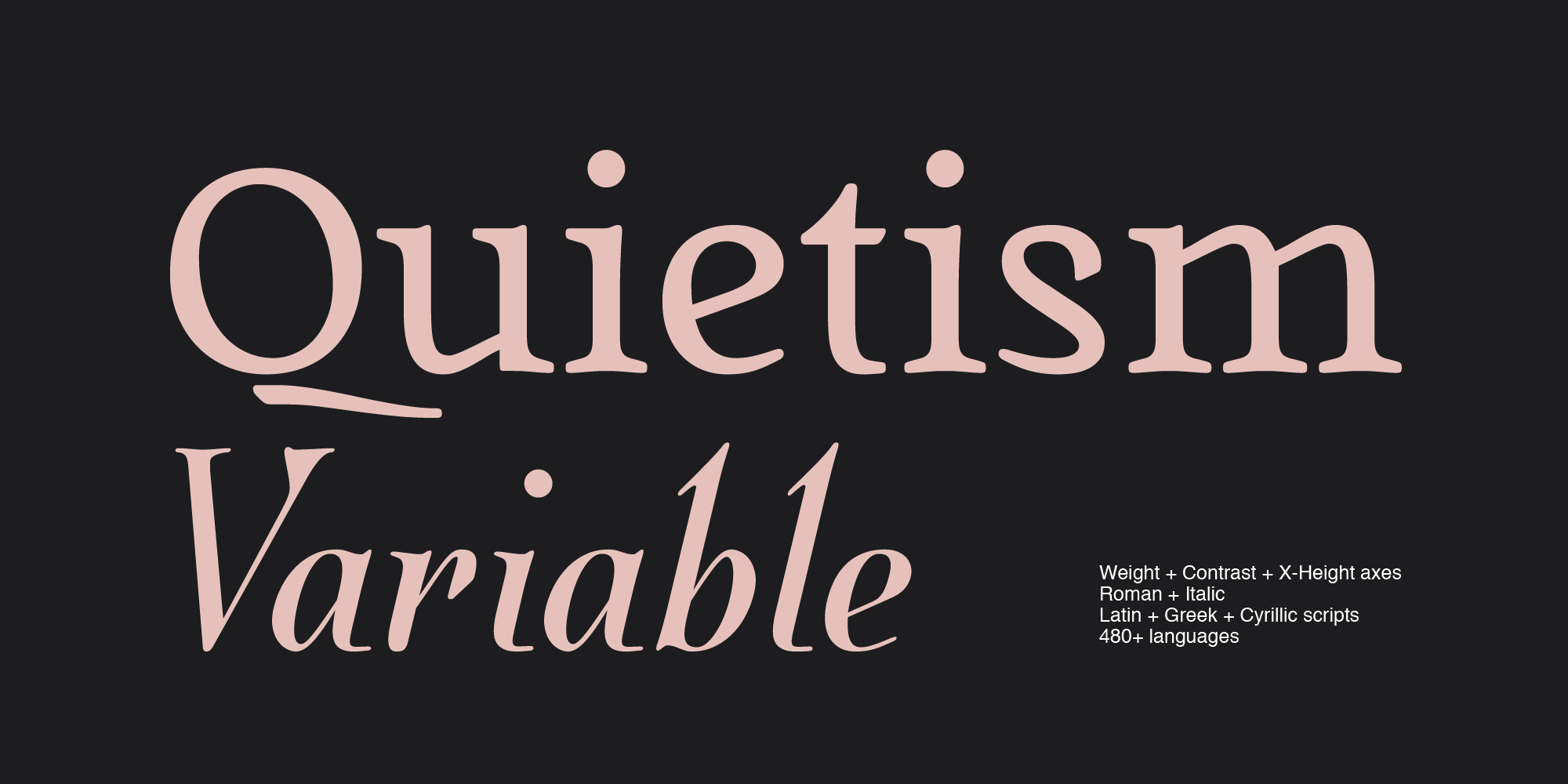
Quietism Variable Font Free Download is a versatile and modern typeface that offers a wide range of styles and weights thanks to its variable font technology. Perfect for branding, editorial design, web typography, posters, and packaging, Quietism Variable Font allows designers to customize the weight and style to fit any creative need. Its clean lines, contemporary curves, and balanced proportions make it ideal for both display and body text, ensuring readability with a stylish, sophisticated touch.
Whether you're crafting bold headlines, minimalist logos, or elegant editorial layouts, Quietism Variable Font provides a dynamic solution that adapts effortlessly across print and digital platforms. Its flexibility empowers designers to create unique, cohesive typography tailored to each project.